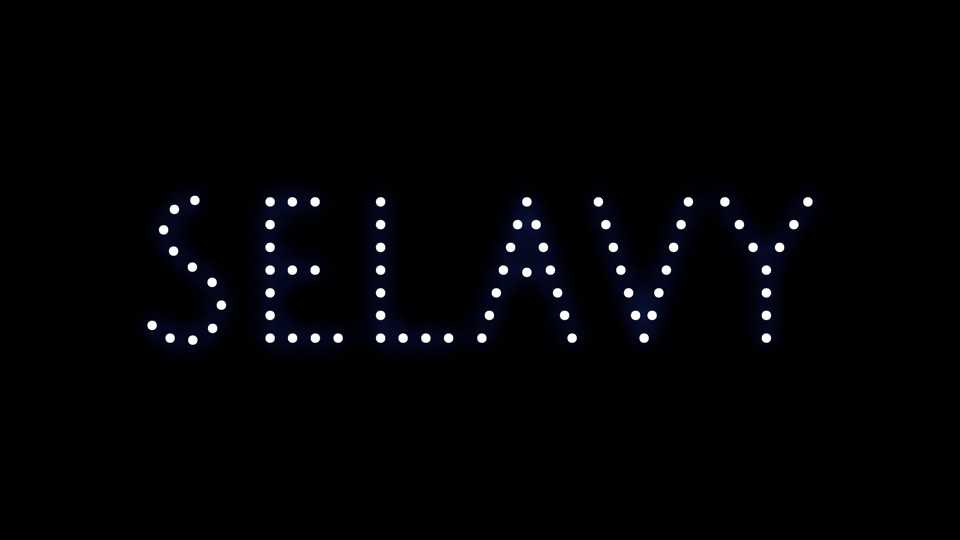
Download Sélavy font, a decorative dotted display typeface loosely based on the punched-out caps on Marcel Duchamp’s 1934 “Green Box”. Sélavy font works best for posters, headlines and other display use.
Designer: Nina Stössinger